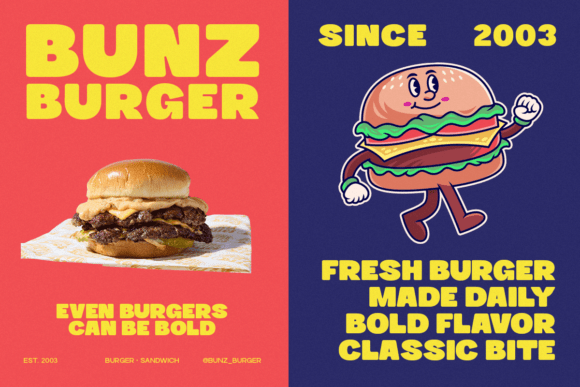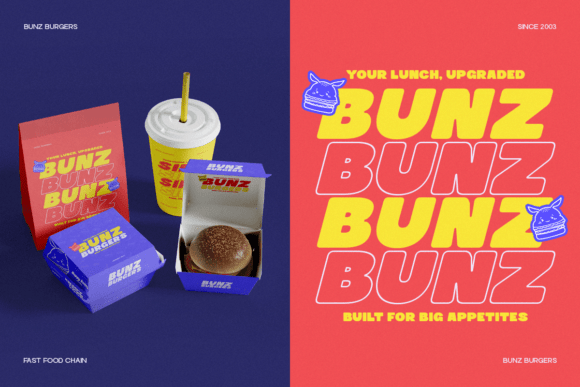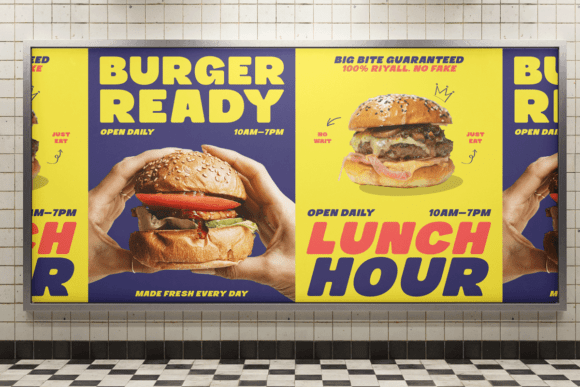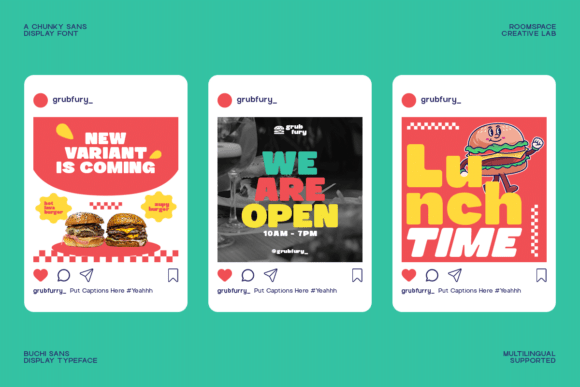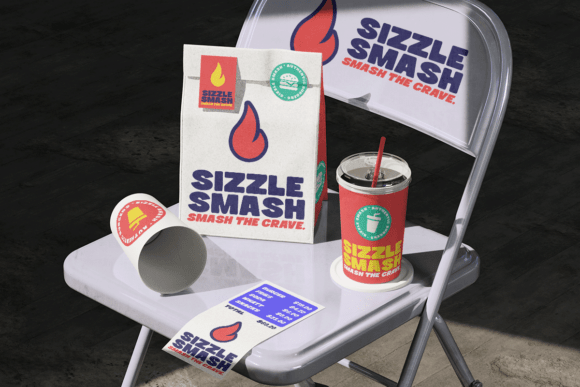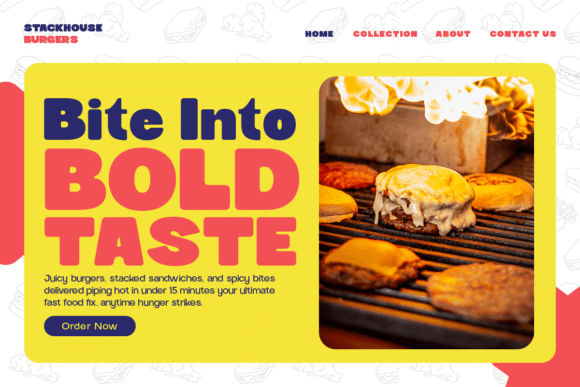
Introducing Buchi Sans Font: The Ultimate Bold and Playful Display Font
Are you tired of using the same old fonts that fail to grab attention? Look no further than Buchi Sans, a chunky sans-serif font that is built to make a statement. With its bold, playful, and high-energy design, Buchi Sans is the perfect choice for designers and crafters who want to add a touch of fun and confidence to their work.
The Power of Bold and Playful Design
Buchi Sans is a font that is designed to deliver a loud visual impact. Its rounded, oversized letterforms are fun, confident, and expressive, making it perfect for designs that need to stand out fast. The tone of this font is joyful, energetic, and unapologetically bold, making it ideal for headlines, posters, social media content, and brand visuals.
One of the key features of Buchi Sans is its chunky letterforms, which are designed to add big energy and joyful character to any layout. The font’s friendly curves and rounded edges give it a modern and approachable feel, making it perfect for designs that need to feel friendly and memorable.
Buchi Sans is a versatile font that can be used for a wide range of design projects. Whether you’re designing posters, social media content, brand visuals, or packaging, this font is sure to make your message feel confident, modern, and unforgettable.
For designers, Buchi Sans offers a unique opportunity to add some personality to your work. The font’s bold and playful design makes it perfect for headlines and titles, while its friendly curves and rounded edges make it suitable for body text and descriptions.
Key Features of Buchi Sans Font
- Bold and playful design: Buchi Sans is a font that is designed to grab attention. Its bold and playful design makes it perfect for headlines, posters, and social media content.
- Chunky letterforms: The font’s chunky letterforms are designed to add big energy and joyful character to any layout.
- Rounded edges: The font’s rounded edges give it a modern and approachable feel, making it perfect for designs that need to feel friendly and memorable.
- Versatile: Buchi Sans is a versatile font that can be used for a wide range of design projects, from posters and social media content to brand visuals and packaging.
Why Choose Buchi Sans Font?
There are many reasons why designers and crafters should choose Buchi Sans font for their next project. Here are just a few:
- Instant attention: Buchi Sans is designed to grab attention instantly. Its bold and playful design makes it perfect for headlines and titles that need to stand out.
- Modern and confident: The font’s modern and confident design makes it perfect for brands that want to feel fresh and youthful.
- Easy to read: Despite its bold design, Buchi Sans is easy to read, making it perfect for body text and descriptions.
- Unique personality: Buchi Sans has a unique personality that sets it apart from other fonts. Its friendly curves and rounded edges give it a modern and approachable feel.
In conclusion, Buchi Sans font is a bold and playful display font that is perfect for designers and crafters who want to add a touch of fun and confidence to their work. With its chunky letterforms, rounded edges, and modern design, Buchi Sans is sure to make your message feel confident, modern, and unforgettable.
Whether you’re designing posters, social media content, brand visuals, or packaging, Buchi Sans is a versatile font that can help you achieve your design goals. So why not give it a try and see the impact it can have on your designs?